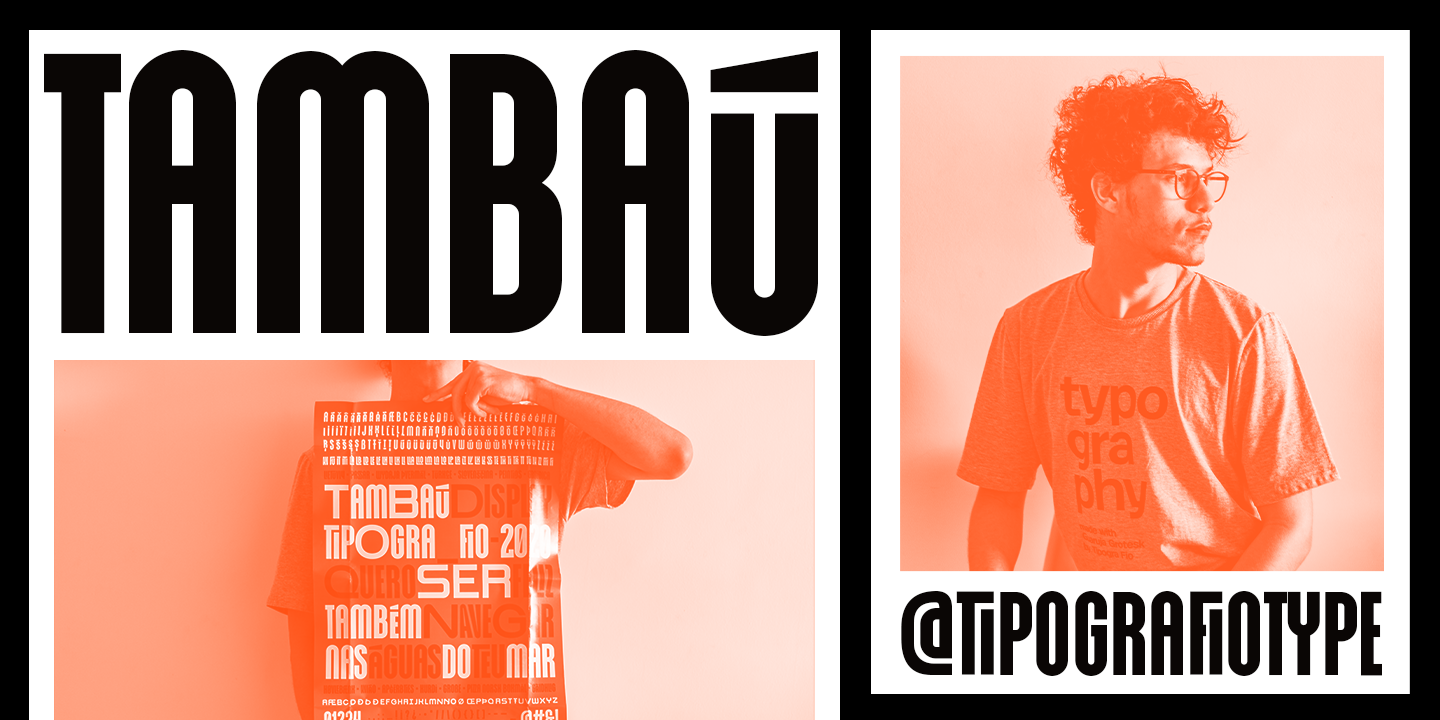
The Tambau Font is perfect for tropical resort branding, Caribbean restaurant menus, beach club signage, island tourism marketing, tropical music festival posters, coastal lifestyle magazines, surf shop logos, beachfront hotel graphics, and vacation rental advertising.
What makes the Tambau Font so exciting is its laid-back tropical charm that instantly evokes the relaxed atmosphere and exotic beauty of paradise destinations. This captivating typeface embodies the carefree spirit and natural harmony that defines island living, creating an immediate sense of vacation bliss and tropical escape. The font's island character communicates the authentic relaxation and tropical sophistication that beach-focused businesses need to attract customers seeking genuine paradise experiences and the ultimate in coastal lifestyle luxury.
The Tambau Font family includes Regular weight with complete uppercase and lowercase alphabets, comprehensive numerical sets, essential punctuation marks, and tropical symbols that maintain the island aesthetic throughout your beach and tropical paradise design projects.
Tropical hospitality businesses and island tourism organizations consistently select Tambau Font Free Download for projects that require authentic tropical appeal and relaxed paradise communication. This exceptional typeface excels in environments where creating an atmosphere of tropical tranquility and exotic luxury is crucial for attracting vacation travelers and beach lifestyle enthusiasts. The font's island character helps communicate the peaceful escape and natural beauty that tropical destination seekers expect from premium beach resorts and authentic island experiences.
The distinctive qualities of Tambau Font reflect the timeless appeal of tropical paradise where natural beauty, relaxed rhythms, and island hospitality create the perfect environment for rest and rejuvenation. Each character demonstrates the flowing ease and organic harmony that characterizes successful tropical destinations and beach lifestyle brands. The font's proportions and spacing create perfect balance between exotic appeal and vacation accessibility that modern tropical businesses require for effective destination marketing and guest communication.
Contemporary tropical enterprises appreciate how Tambau Font communicates island authenticity and paradise luxury. Whether designing materials for beachfront resorts, creating branding for tropical dining establishments, or developing marketing for island adventure tours, this font delivers the genuine character that distinguishes authentic tropical destinations from generic beach properties. The typeface works exceptionally well for businesses emphasizing natural beauty, relaxed luxury, and the authentic island lifestyle experience.
The versatility of Tambau Font extends across multiple tropical applications and beach tourism initiatives. Surf schools utilize its relaxed character for lesson materials and beach equipment branding. Tropical wedding planners choose it to communicate the romantic paradise setting and exotic elegance of destination ceremonies. Beach bars rely on its appealing appearance to create inviting promotional materials that capture the essence of tropical nightlife and island socializing.
Digital tropical platforms benefit from Tambau Font's optimized performance across various paradise-themed applications and tropical communication channels. The font maintains its island character whether displayed on resort websites, mobile beach apps, or digital vacation planning platforms. This technical reliability ensures consistent brand presentation across all tropical communication platforms and beach lifestyle engagement scenarios.
The emotional impact of Tambau Font resonates with audiences who dream of tropical escapes and value the peace and beauty found in paradise destinations. The typeface serves as a visual invitation to experience island tranquility and tropical luxury that helps beach businesses build passionate relationships with vacation travelers and coastal lifestyle enthusiasts. This connection to paradise dreams and tropical relaxation makes it invaluable for establishing memorable island destination brand identities.
Tropical marketing specialists and paradise design professionals recognize Tambau Font as an essential tool for authentic island branding. The font captures the essence of tropical paradise while making beach luxury accessible to contemporary hospitality businesses who want to communicate their commitment to authentic island experiences, natural beauty, and the ultimate in tropical relaxation in today's competitive vacation destination marketplace.